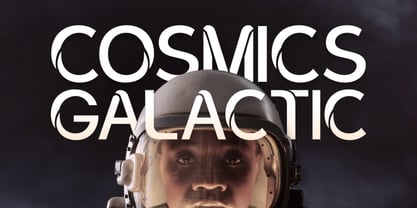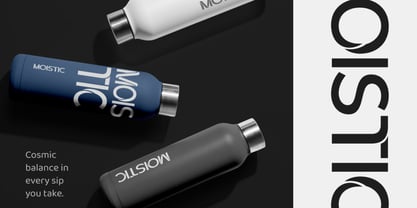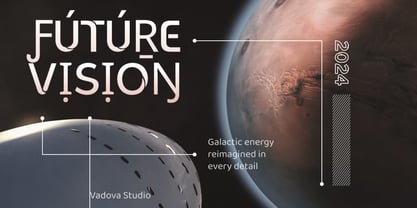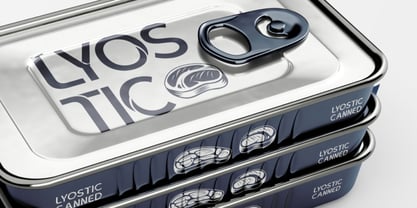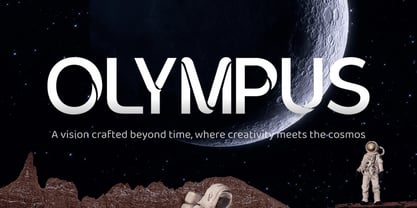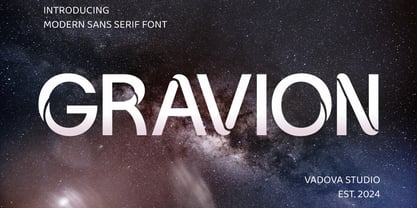
Gravion
Gravion is a modern geometric sans serif typeface engineered for striking visual impact. With clean, precise lines and unique cut‑out details, Gravion blends contemporary minimalism with sci‑fi inspired stylistic elements. Its letterforms are bold yet refined, offering clarity in both large display headlines and compact text blocks. The font includes uppercase, lowercase, numerals, punctuation, and extended multilingual support, giving designers creative flexibility across print and digital media. Gravion’s sharp angles and dynamic shapes make it ideal for futuristic branding, technology interfaces, product packaging, posters, and editorial layouts that demand a distinctive typographic voice. It balances readability with visual personality, bringing a modern edge to every project.